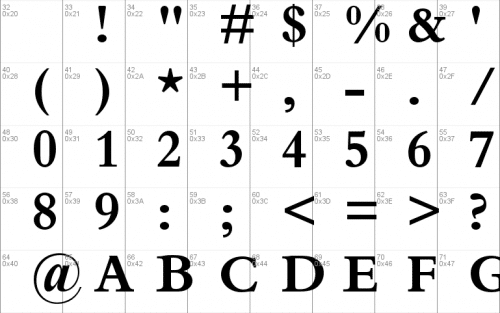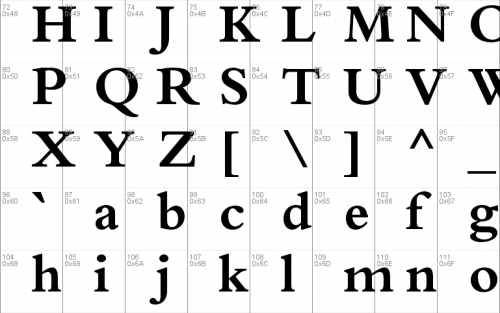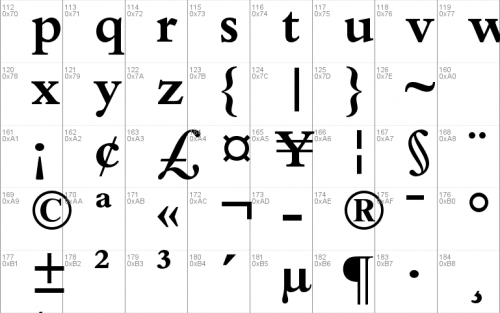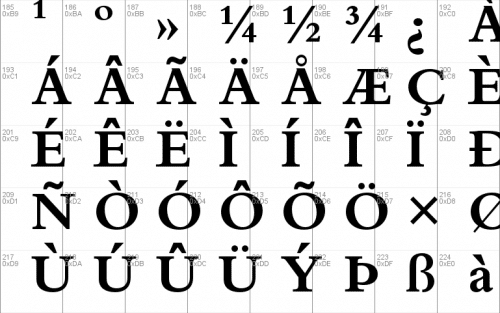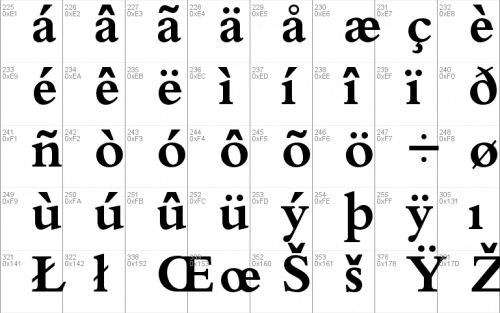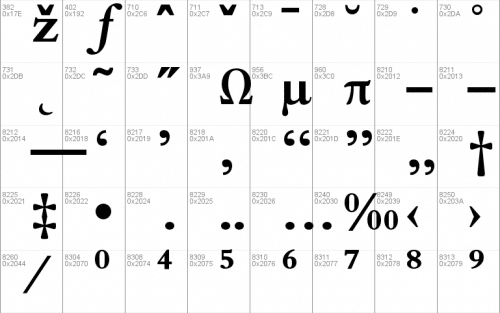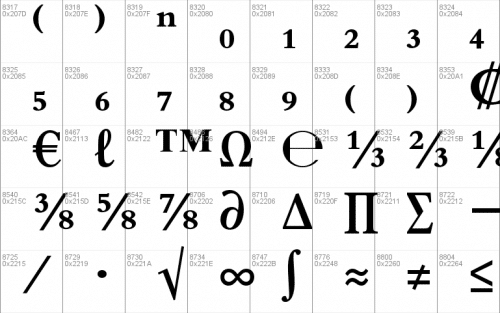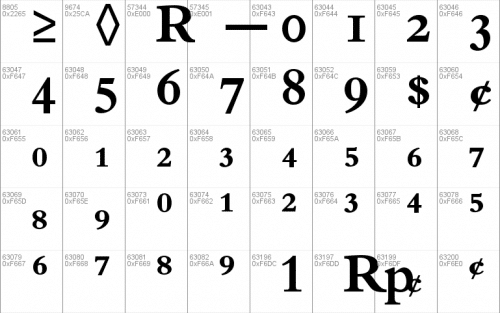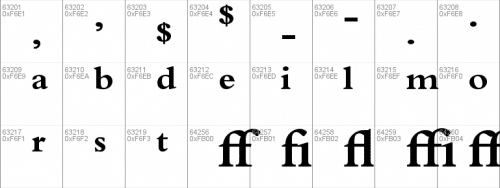
Bembo was modeled on typefaces cut by Francesco Griffo for Aldus Manutius’ printing of De Aetna in 1495 in Venice, a book by classicist Pietro Bembo about his visit to Mount Etna. Griffo’s design is considered one of the first of the old style typefaces, which include Garamond, that were used as staple text types in Europe for two hundred years.
Stanley Morison supervised the design of Bembo for the Monotype Corporation in 1929. Bembo is a fine text face because of its well-proportioned letterforms, functional serifs, and lack of peculiarities; the italic is modeled on the handwriting of the Renaissance scribe Giovanni Tagliente.
Books and other texts set in Bembo can encompass a large variety of subjects and formats because of its quiet classical beauty and its high readability.
- Designer: Aldus Manutius